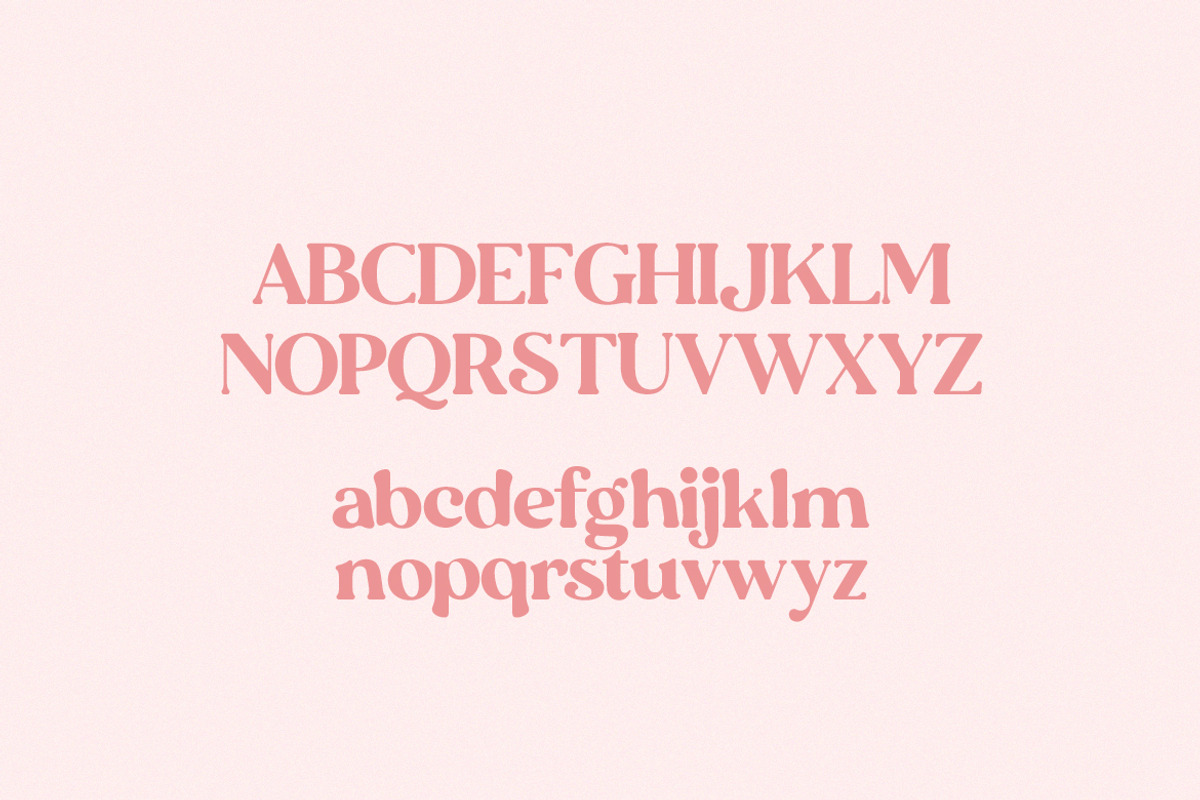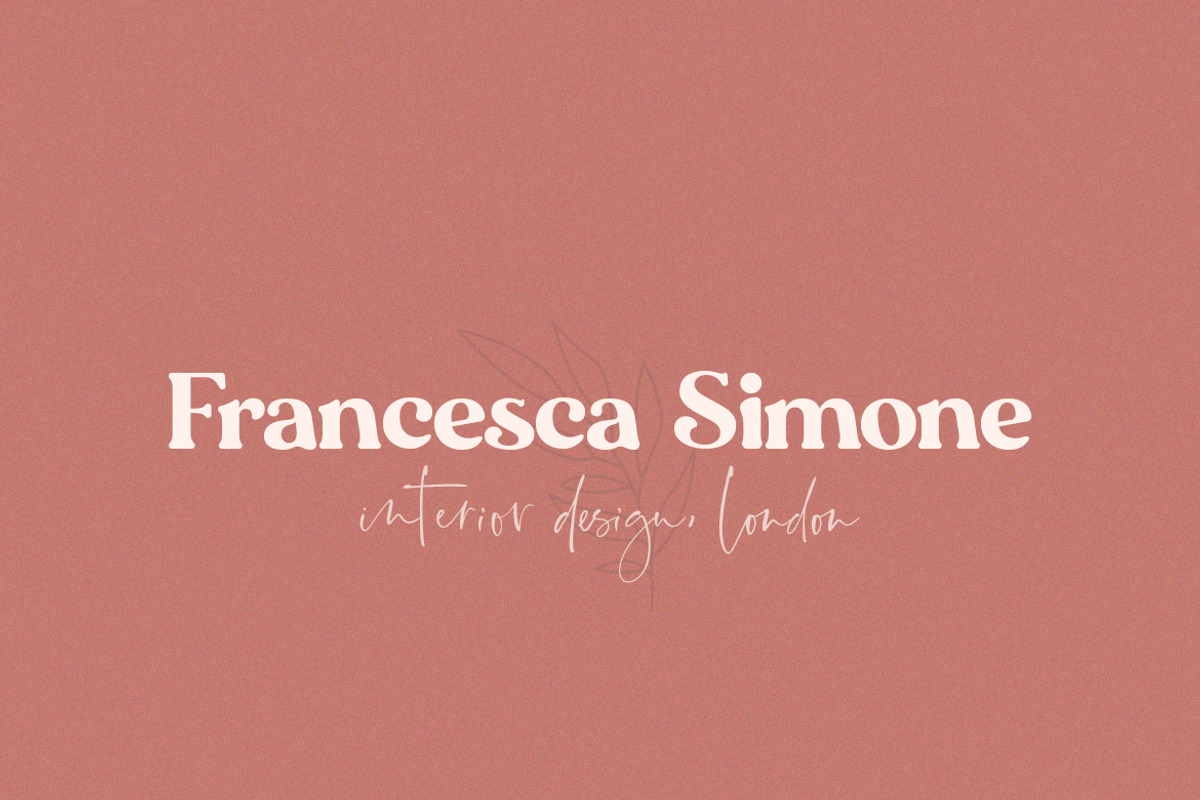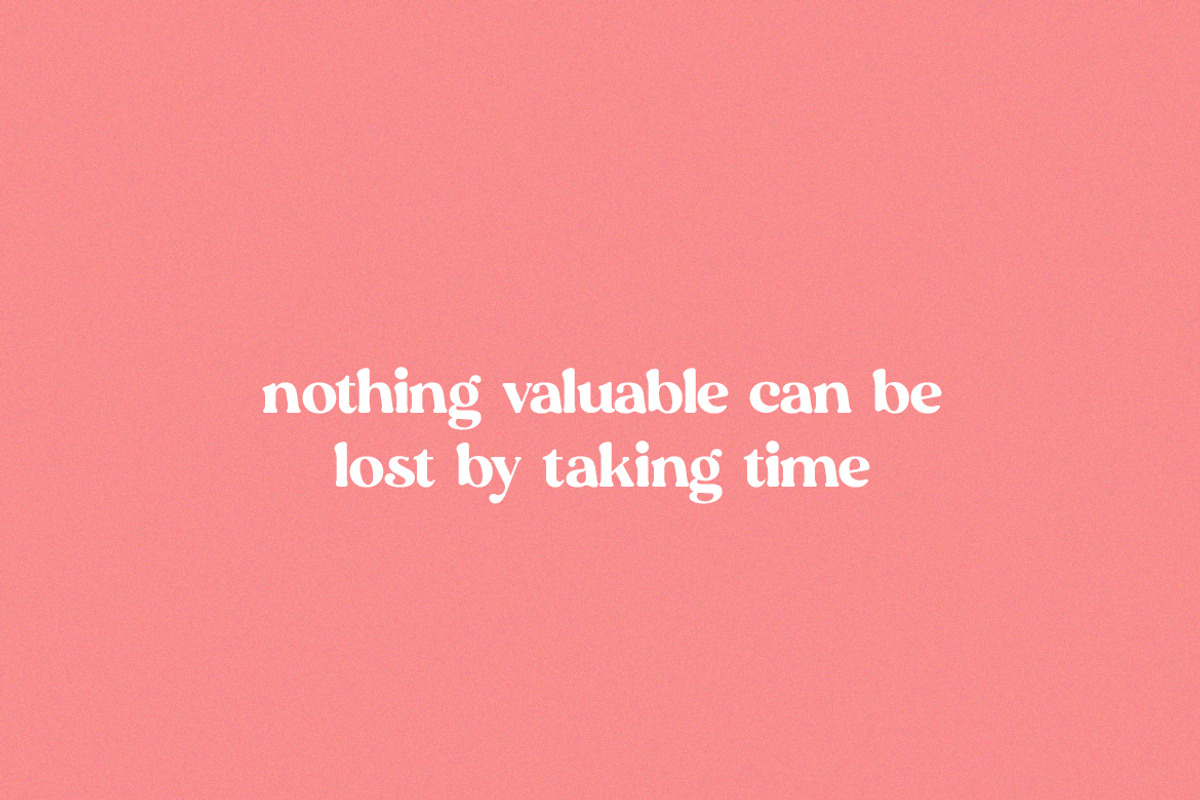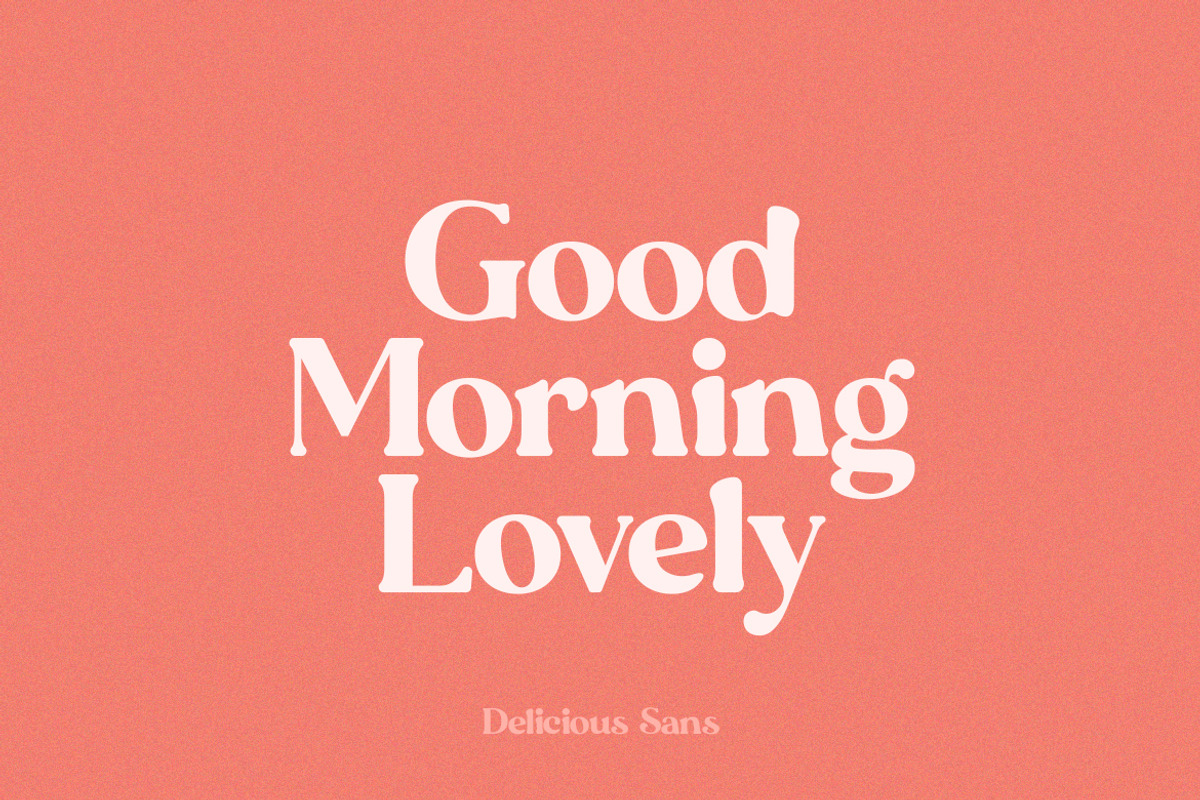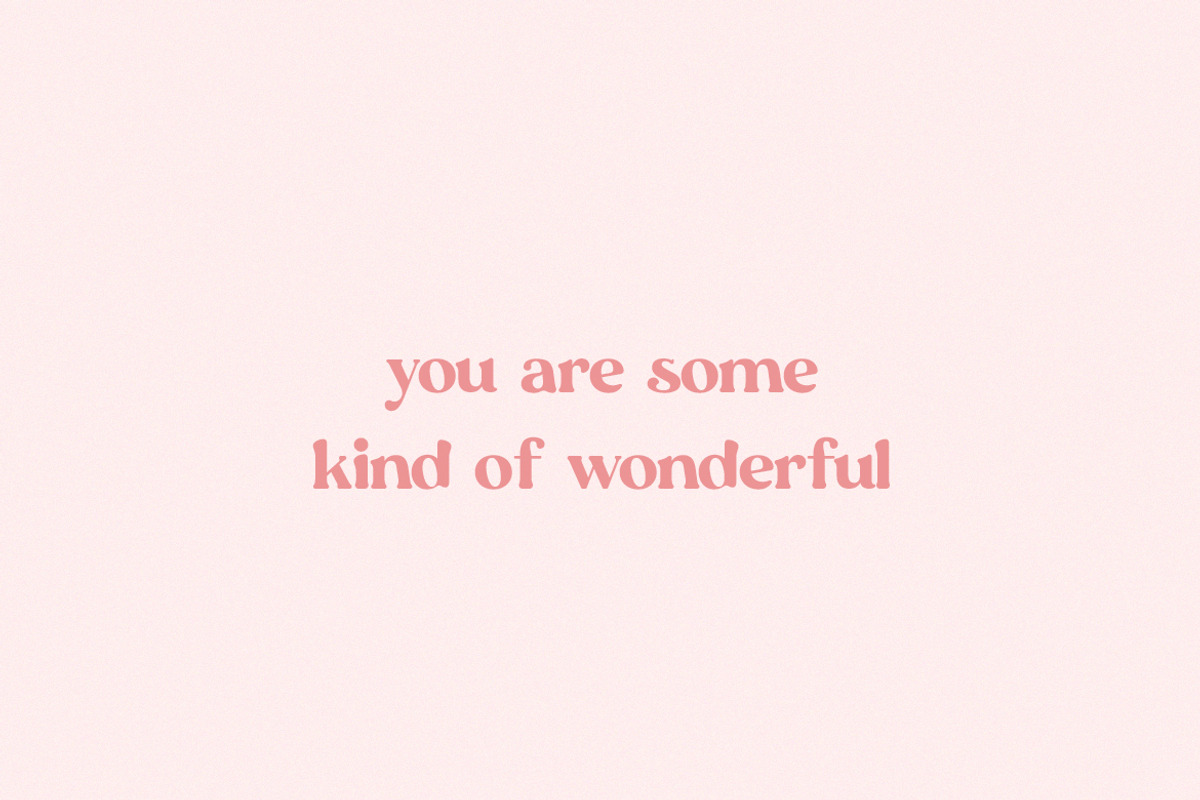
Delicious Sans Font
Why Delicious Sans Font is worth a look
Delicious Sans Font by Salt & Pepper Designs fits naturally into Branding, posters, packaging, typography.